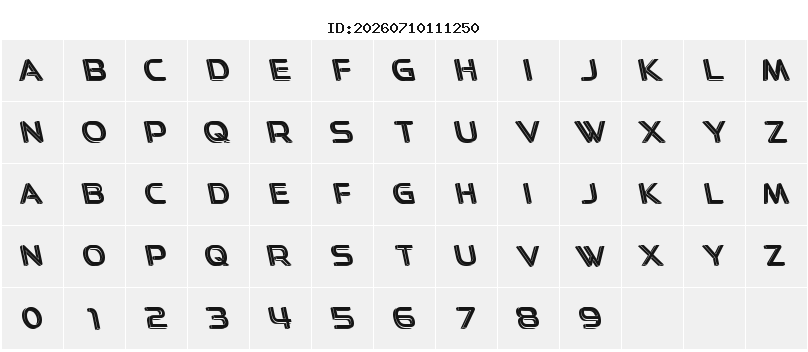
Easy 3D Preview
• Font Name: Easy 3D
• Full Font Name: Easy 3D
• Version: Version 1.00 July 14, 2013, initial release
• Designer: Hareesh Seela
About Easy 3D.ttf
Easy 3D.ttf is a modern, elegant sans-serif font designed for ultimate readability and visual harmony. Perfect for branding, headlines, web design, and print materials.